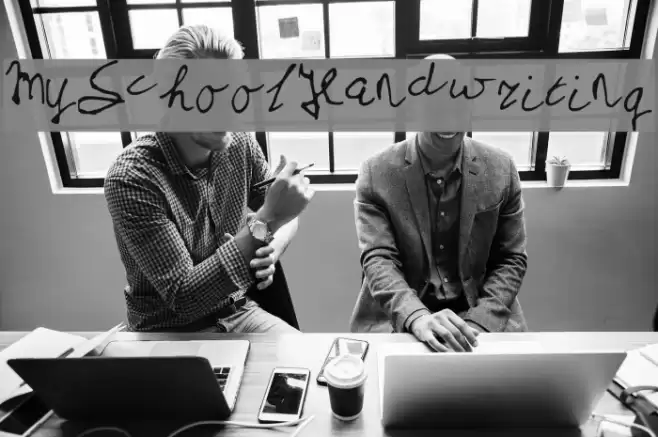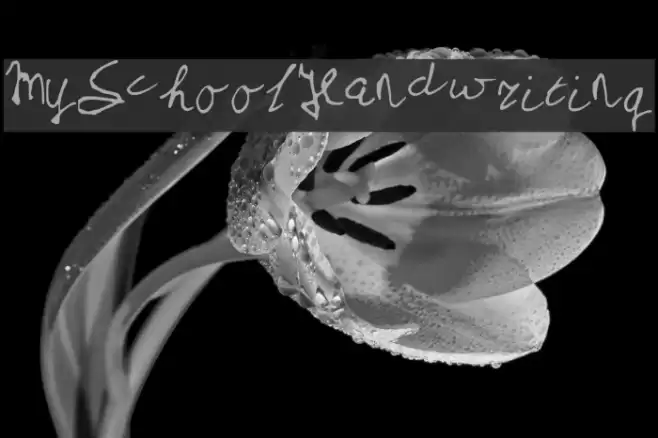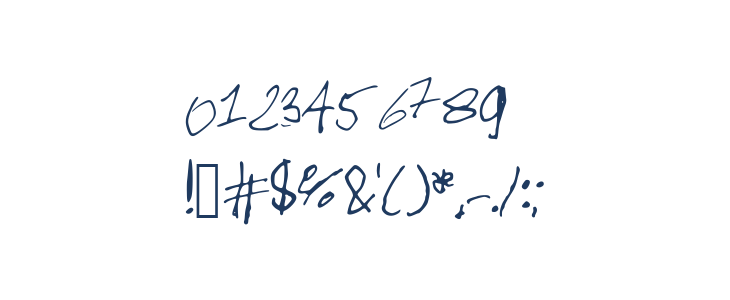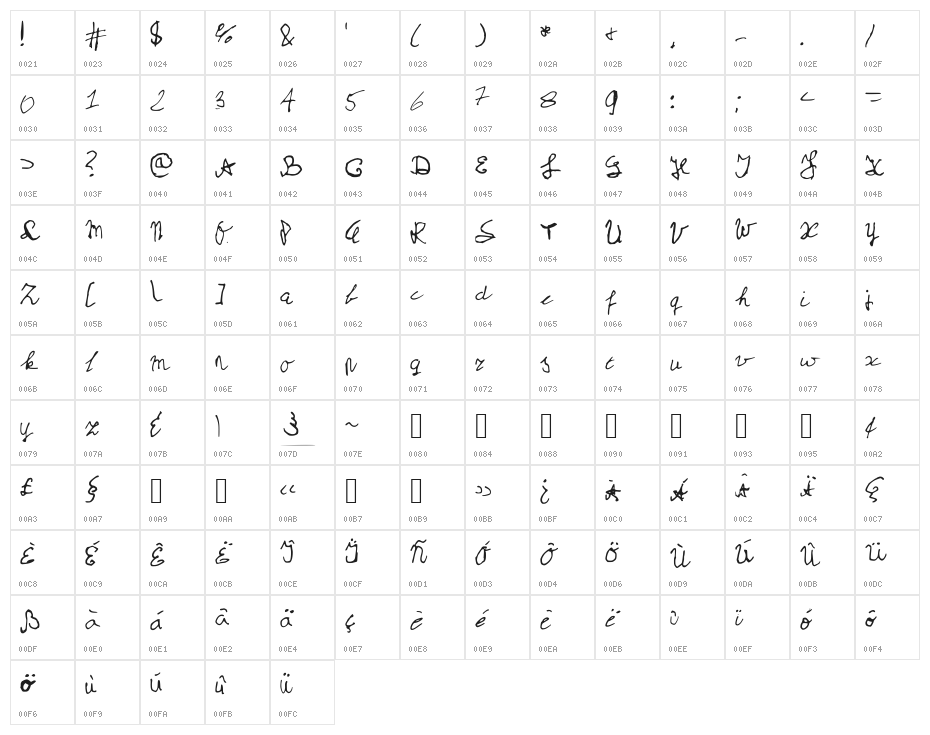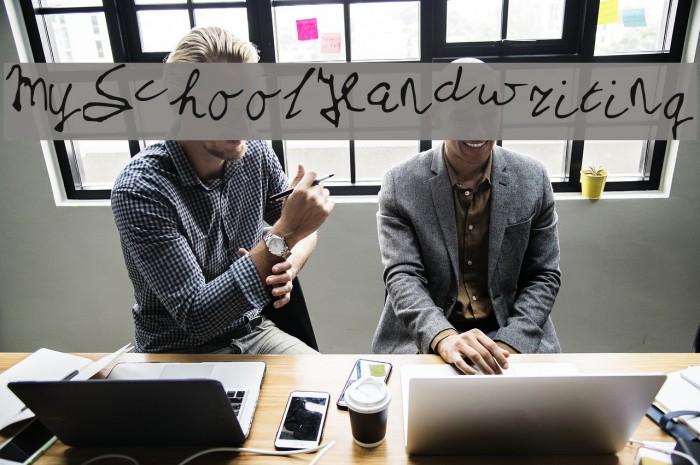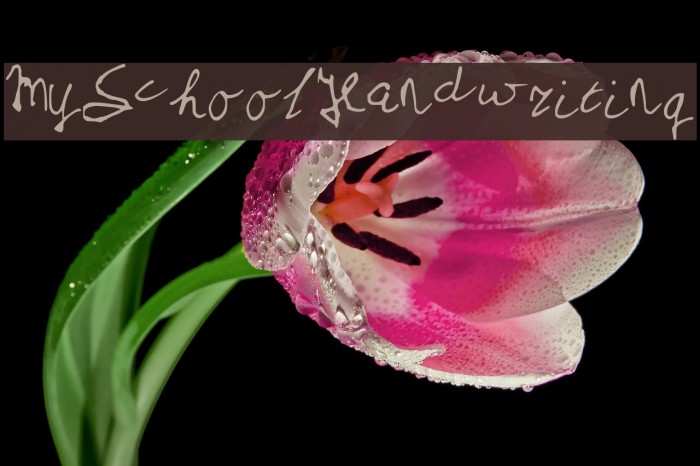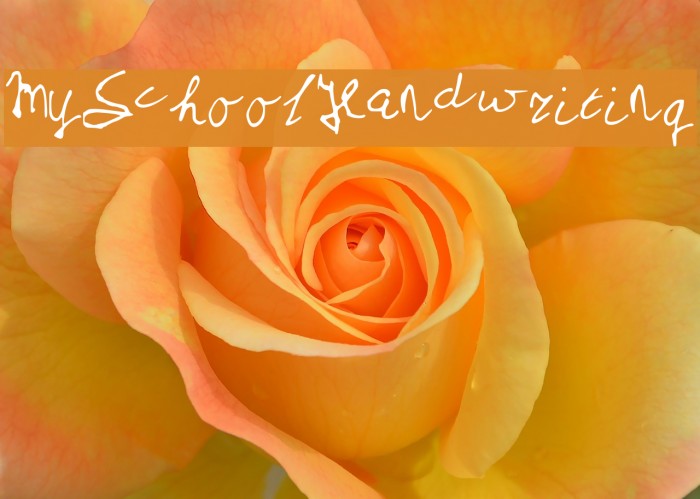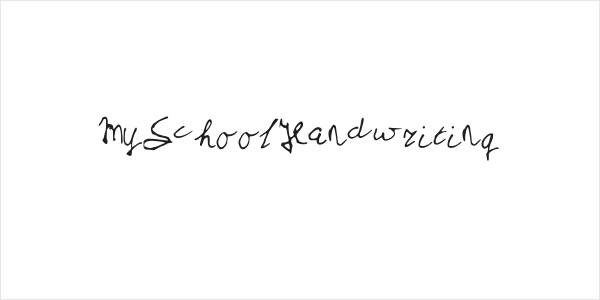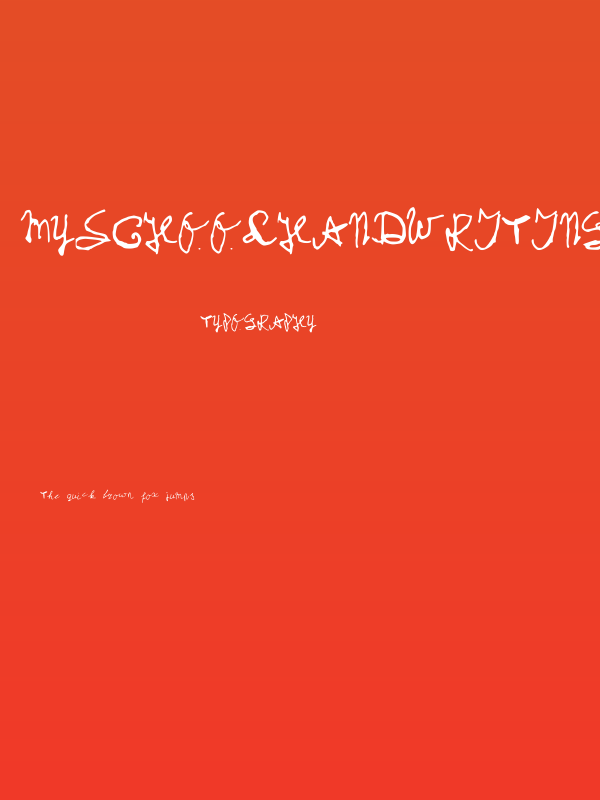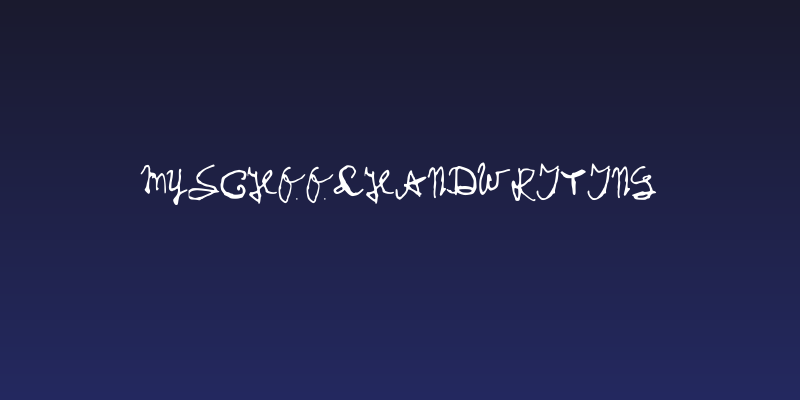
MySchoolHandwriting Font
MySchoolHandwriting Description
This font captures the essence of a casual, handwritten style, reminiscent of a student's personal notes. The letters are fluid and connected, with a playful and informal appearance. The uppercase and lowercase letters maintain a consistent flow, while the numbers and special characters add a touch of whimsy. The strokes are uneven, giving it a natural and authentic feel, as if written with a pen. This font is perfect for projects that require a personal touch or a sense of individuality.
A casual, handwritten font with fluid, connected letters and a playful style from Handwritten fonts.
- Proposed Projects: Ideal for personal notes, invitations, greeting cards, and educational materials.
- Overall Style: Casual
- Use Case: Invitations, Personal notes, Educational materials